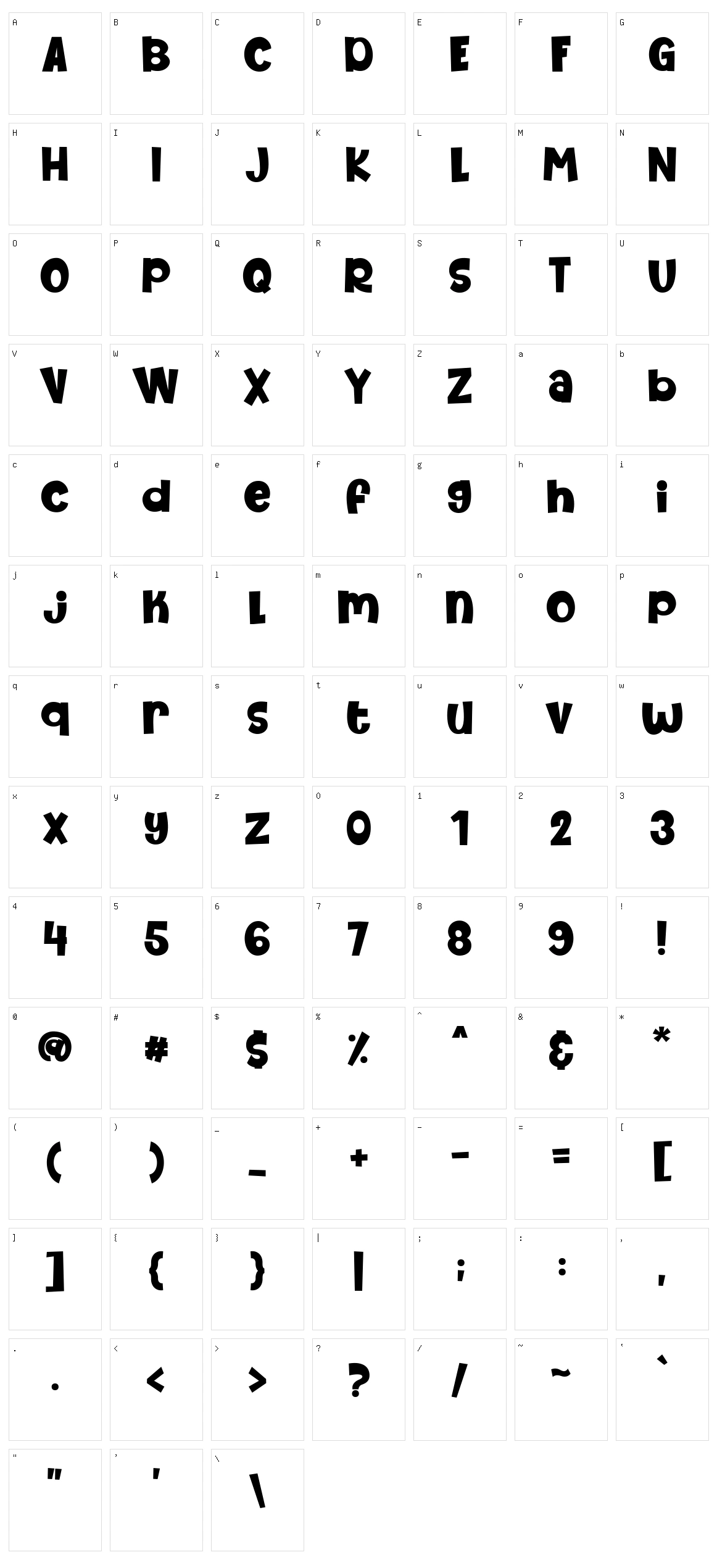
The free font We Are Allstar is carefully designed by Gilar Studio, showcasing a thoughtful balance of creativity and usability and falls under the Cartoon font style. When you download the ZIP file, it contains only 130.14 KB of font files, making it lightweight and quick to download. Please review the license details below to understand permitted usage and distribution rights. If license information is not available, we recommend using this font for personal projects only or contacting the author directly for commercial usage permissions.